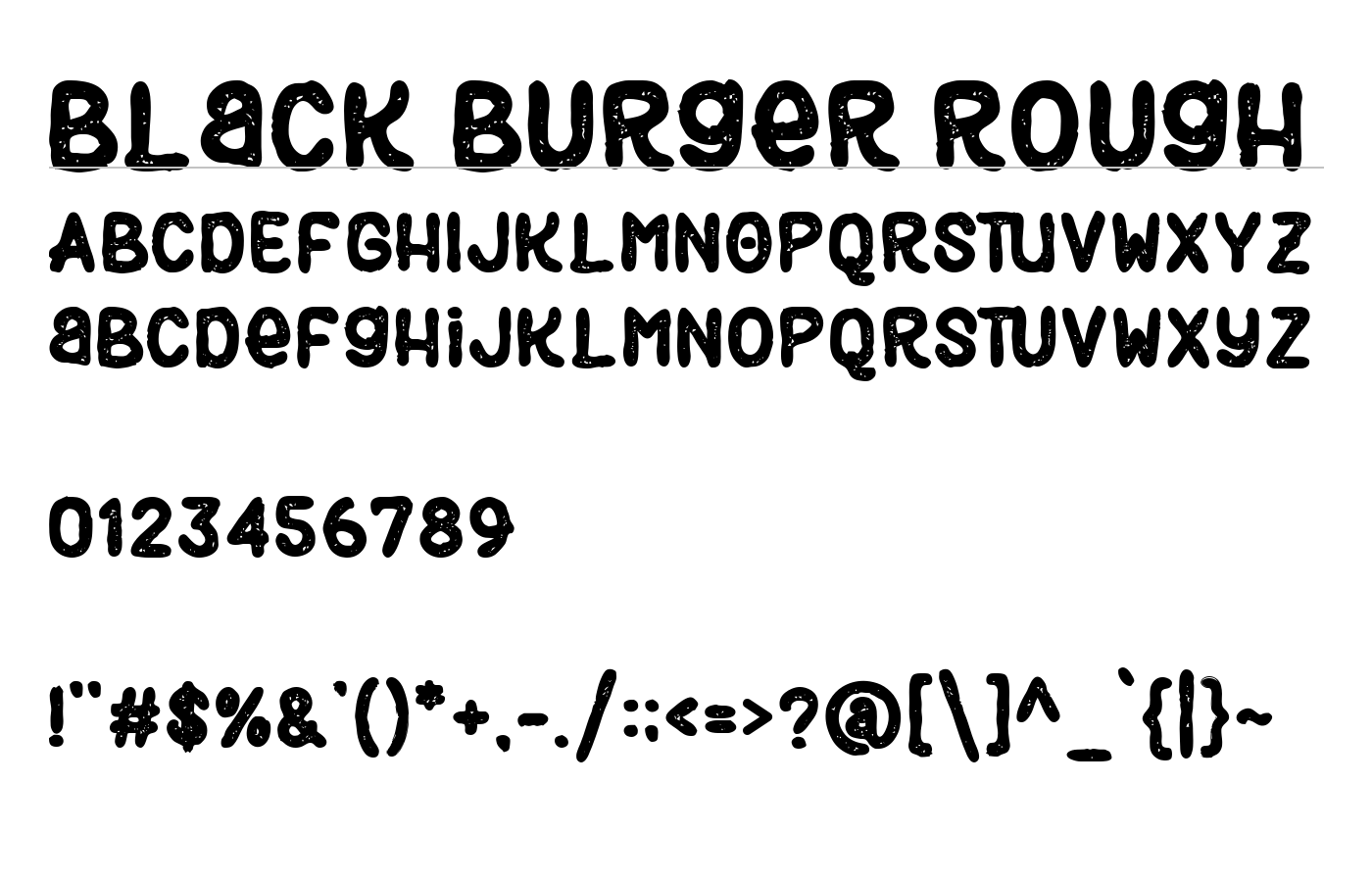
Black Burger Rough is a bold, playful sans serif font with a hand-drawn, textured style that adds character and a casual feel. Its rounded, slightly irregular letterforms and rough texture make it perfect for fun, informal designs like logos, posters, and packaging that seek a quirky, approachable vibe. This font works well when you want to convey creativity and friendliness with a touch of rustic charm.
Black Burger Font
About Black Burger Font